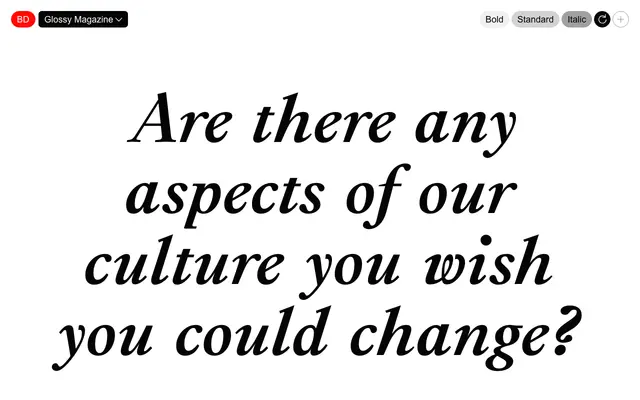
Glossy Magazine
A three-style display serif from Bold Decisions pitched at editorial and fashion publishing, offered in Bold, Standard and Italic.
With only three named styles, Glossy Magazine keeps its scope narrow: Bold, Standard and Italic cover the core editorial range without additional weights or widths. The name signals its intended territory clearly, pointing toward magazine layouts, fashion branding and headline work where a high-contrast serif personality is expected. The page offers little additional detail about its origins or designer.
The name and the three-style family structure suggest a high-contrast display serif aimed at editorial and fashion contexts, consistent with the 'glossy magazine' aesthetic the name invokes.